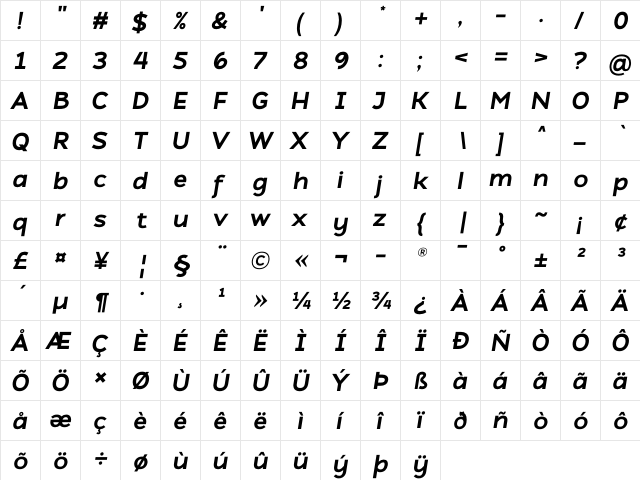
Atozimple ExtraBold Italic
| Foundry | 7NTypes |
| Designer | Situjuh Nazara |
Design Context for Atozimple ExtraBold Typeface
Atozimple ExtraBold is a composed and adaptable typeface that performs quietly and consistently across a wide range of design contexts. The dynamic lean of this cut emphasises speed and emphasis in any layout. Its bold stroke weight gives it real presence on the page.